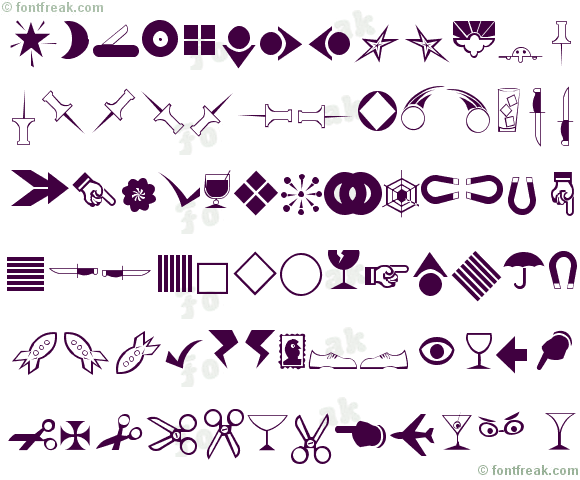
RSBill Dings is a captivating decorative dingbat font that adds a unique flair to your creative projects. With its whimsical and playful design, this font offers a range of charming symbols and icons that can enhance various visual communications. The stroke weight is consistent, providing a balanced appearance, while the spacing between each character allows for clarity and easy integration into different layouts. The decorative elements of RSBill Dings are eclectic, featuring a mix of playful icons that evoke a sense of fun and creativity, making it ideal for projects where a lighthearted touch is desired.
This font is particularly well-suited for use cases such as greeting cards, where its playful symbols can convey emotions in a visually engaging way. It also shines in crafting personalized party invitations, where the unique icons can add an element of surprise and delight. Additionally, RSBill Dings can be effectively used in website designs, especially in sections that require eye-catching visuals to draw attention. Small business owners can utilize this font in their promotional materials, such as flyers or social media graphics, to create a distinctive brand identity that stands out in a crowded marketplace.
The target audience for RSBill Dings includes graphic designers looking to enhance their work with unique symbols, small business owners seeking to create memorable branding, and content creators who want to add an artistic touch to their projects.
What makes the RSBill Dings font free download particularly appealing is its versatility and charm. It offers designers and creators the opportunity to incorporate delightful visuals without the constraints of a premium license. With its unique character and playful nature, RSBill Dings is a delightful addition to any creative toolkit.